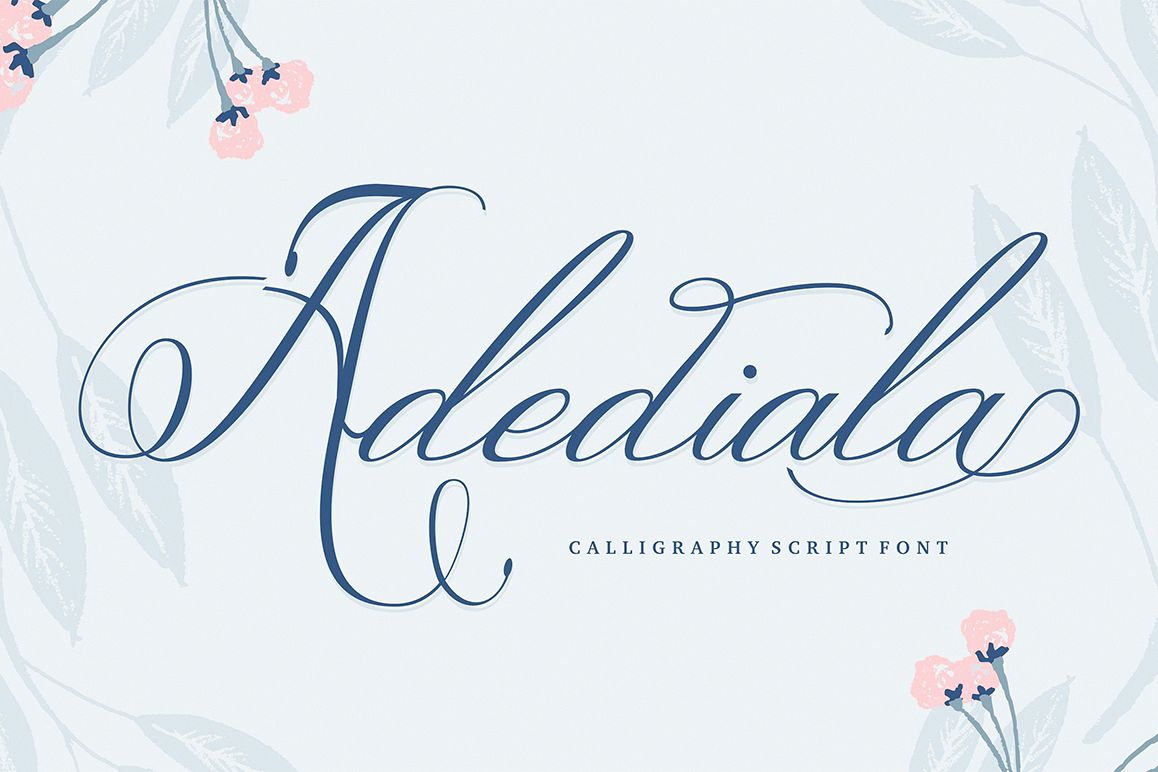
Adediala Script
Adediala Script is calligraphy Script typeface, a simply beautiful, classic and elegant. With almost 386 glyphs and contain with opentype features. Stylistic alternates. can be used for various purposes.such as logos, wedding invitation, t-shirt, letterhead, signage, news, posters, badges etc. To enable the OpenType Stylistic alternatives intelligent programs or manually select a character from the Glyph Palette.
Nice font! Very good for wedding invitations! Clean and smooth...
Great font
A fonte é linda, vem com os acentos e glifos.
A bit too swirly for my taste but could look great on a Champagne label.